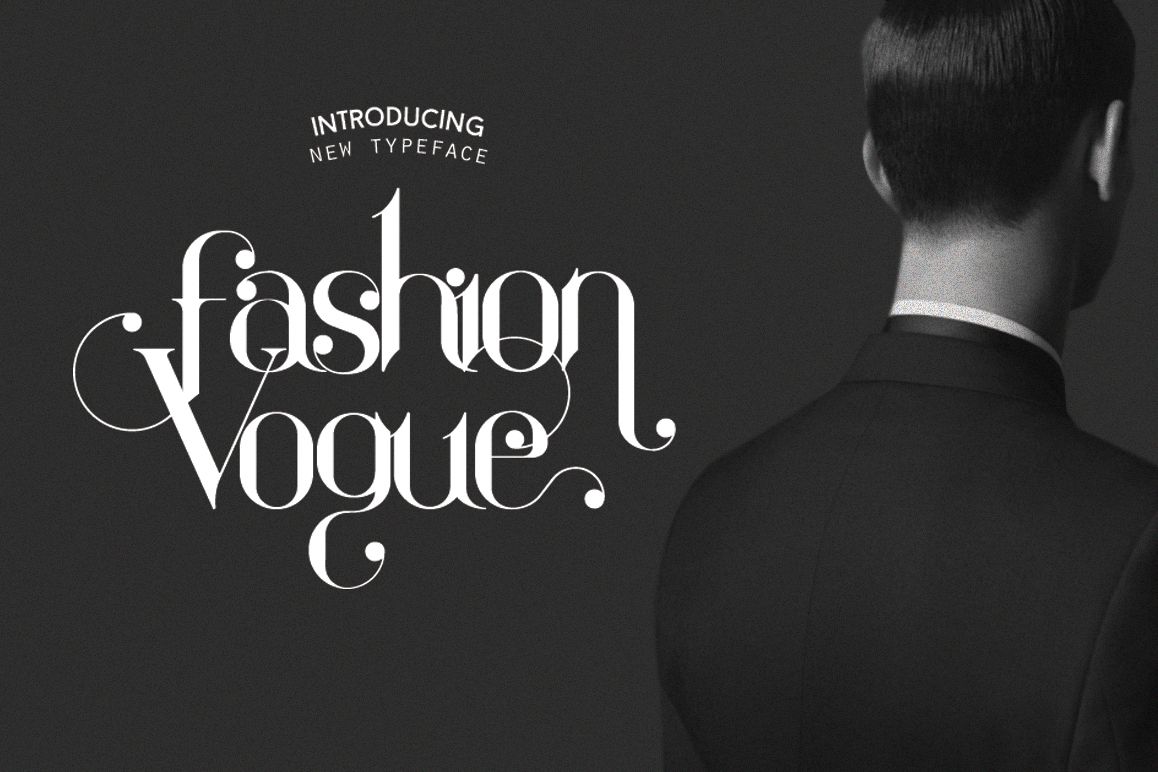
fashionvogue
fashion vogue.
This typeface insipired by magazine fashion. this typeface more elegant, clear, luxurious and fashionable. this font suitable to use as typograhpy in magazine editorial, for example if you use as header font, quotes, and the other words which have short character.
this font have 250 glyps, and many more uniq stylistic characters
Punctuation & Symbol
Multi language
Ligatures
Swash
Alternatives Character
Stylistic Alternatives
Special Glyphs
Open Type Features